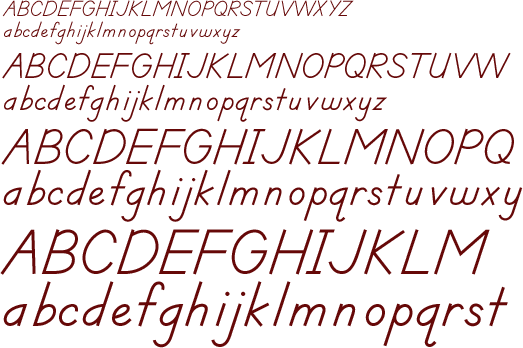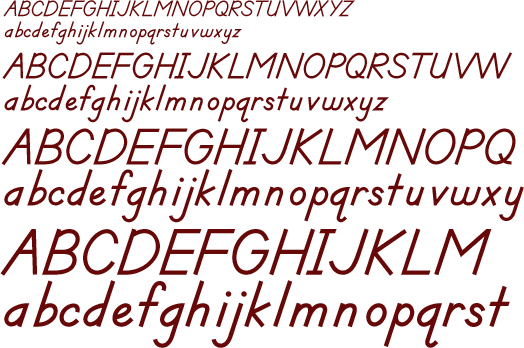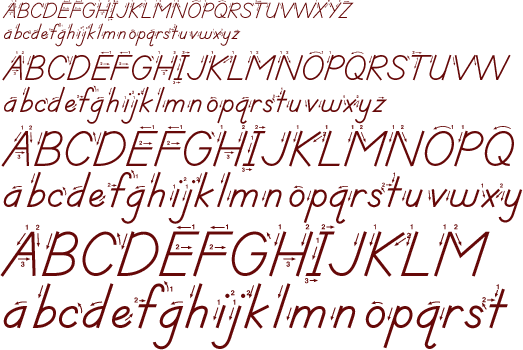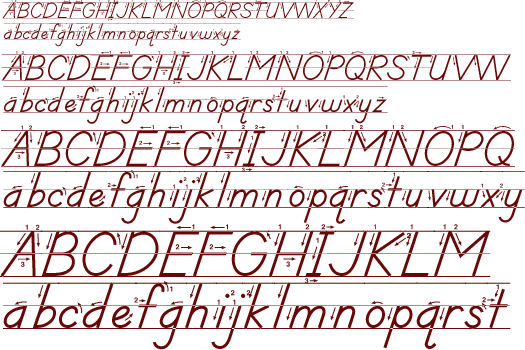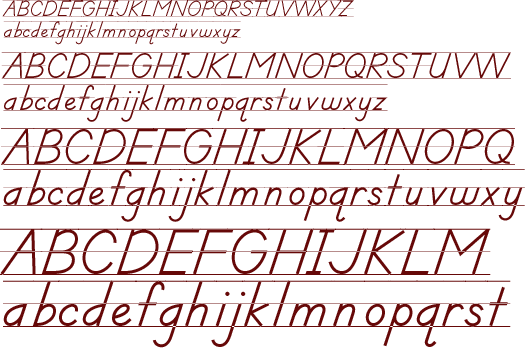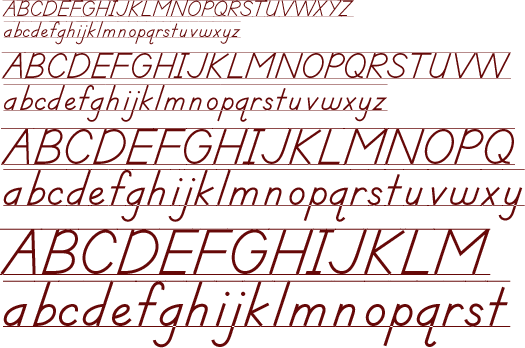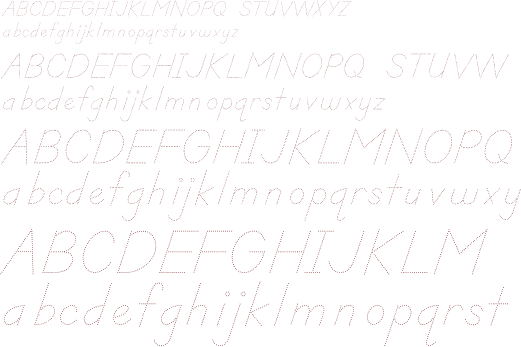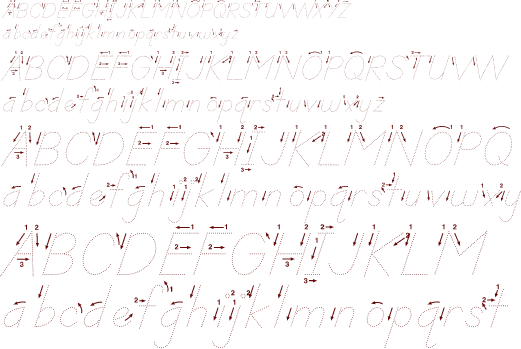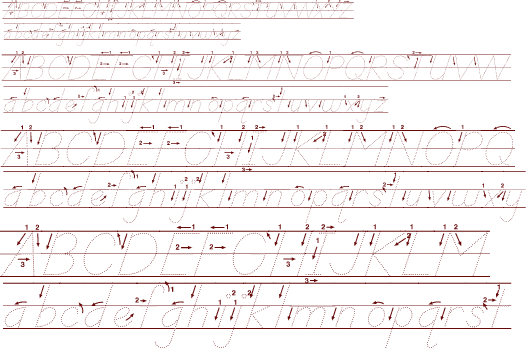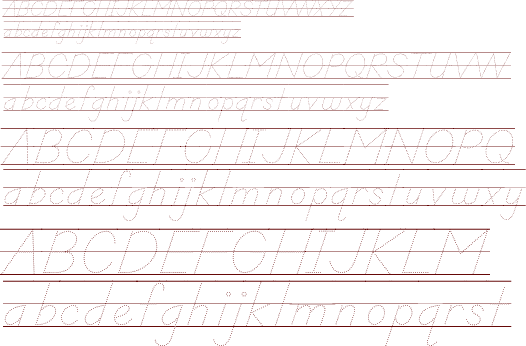
SchoolLOE by David Occhino
Manuscript and cursive fonts designed for the Logic of English® writing program.
Logic of English Manuscript font and Cursive font by David Occhino Design
Character Set
School has a set of 350 glyphs.
• Latin A-Z, a-z
• Complete punctuation
• International characters
School Manuscfipt LOE character set
School Cursive LOE character set
Samples
SCHOOL MANUSCRIPT LOE
• School™ Manuscript LOE Regular
School™ Manuscript LOE Regular
• School™ Manuscript LOE Bold
School™ Manuscript LOE Bold
• School™ Manuscript LOE Arrows
School™ Manuscript LOE Arrows
• School™ Manuscript LOE Guides A
School™ Manuscript LOE Guides A
• School™ Manuscript LOE Guides B
School™ Manuscript LOE Guides B
• School™ Manuscript LOE Guides C
School™ Manuscript LOE Guides C
• School™ Manuscript LOE Traced Regular
School™ Manuscript LOE Traced Regular
• School™ Manuscript LOE Traced Arrows
School™ Manuscript LOE Traced Arrows
• School™ Manuscript LOE Traced Guides A
School™ Manuscript LOE Traced Guides A
• School™ Manuscript LOE Traced Guides B
School™ Manuscript LOE Traced Guides B
• School™ Manuscript LOE Traced Guides C
School™ Manuscript LOE Traced Guides C
SCHOOL CURSIVE LOE
• School™ Cursive LOE Regular
School™ Cursive LOE Regular
• School™ Cursive LOE Bold
School™ Cursive LOE Bold
• School™ Cursive LOE Arrows
School™ Cursive LOE Arrows
• School™ Cursive LOE Guides A
School™ Cursive LOE Guides A
• School™ Cursive LOE Guides B
School™ Cursive LOE Guides B
• School™ Cursive LOE Guides C
School™ Cursive LOE Guides C
• School™ Cursive LOE Traced Regular
School™ Manuscript LOE Traced Regular
• School™ Cursive LOE Traced Arrows
School™ Cursive LOE Traced Arrows
• School™ Cursive LOE Traced Guides A
School™ Cursive LOE Traced Guides A
• School™ Cursive LOE Traced Guides B
School™ Cursive LOE Traced Guides B
• School™ Cursive LOE Traced Guides C
School™ Cursive LOE Traced Guides C
School™ Manuscript LOE and School™ Cursive LOE was designed by artist David Occhino.